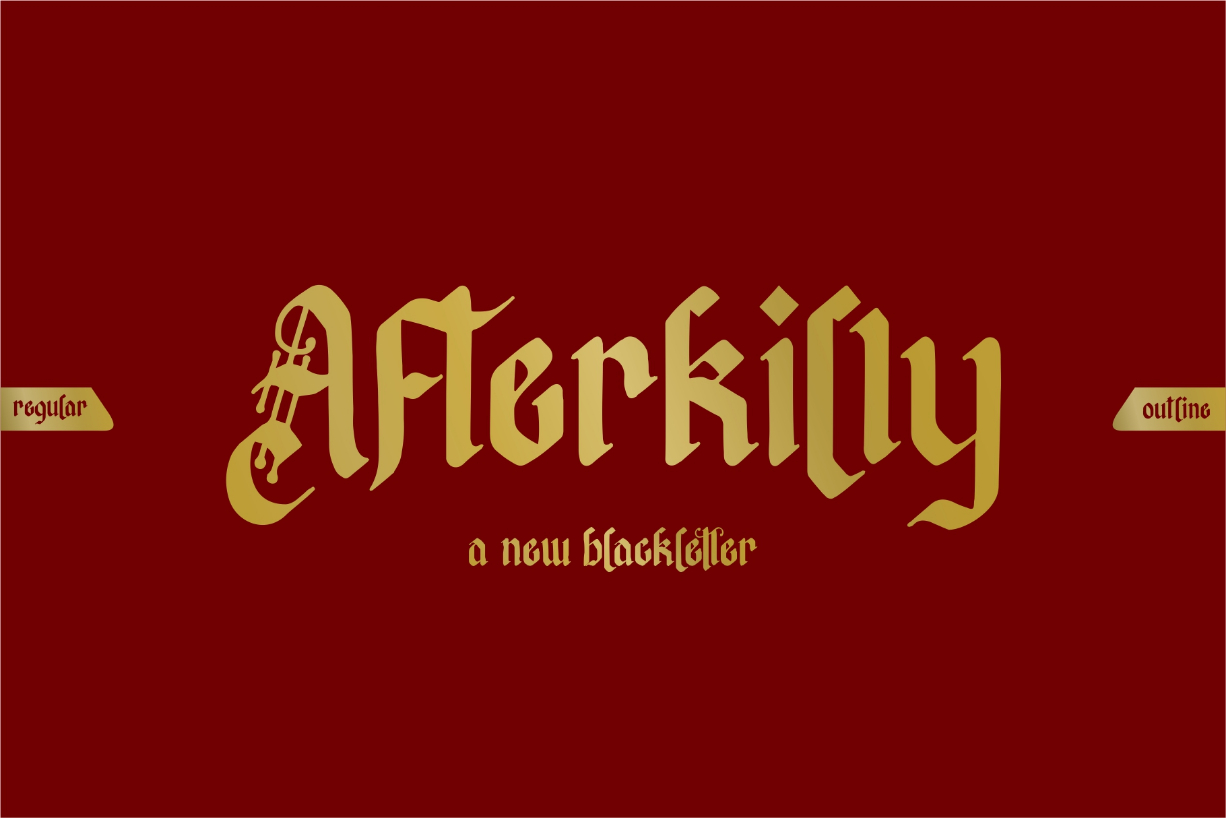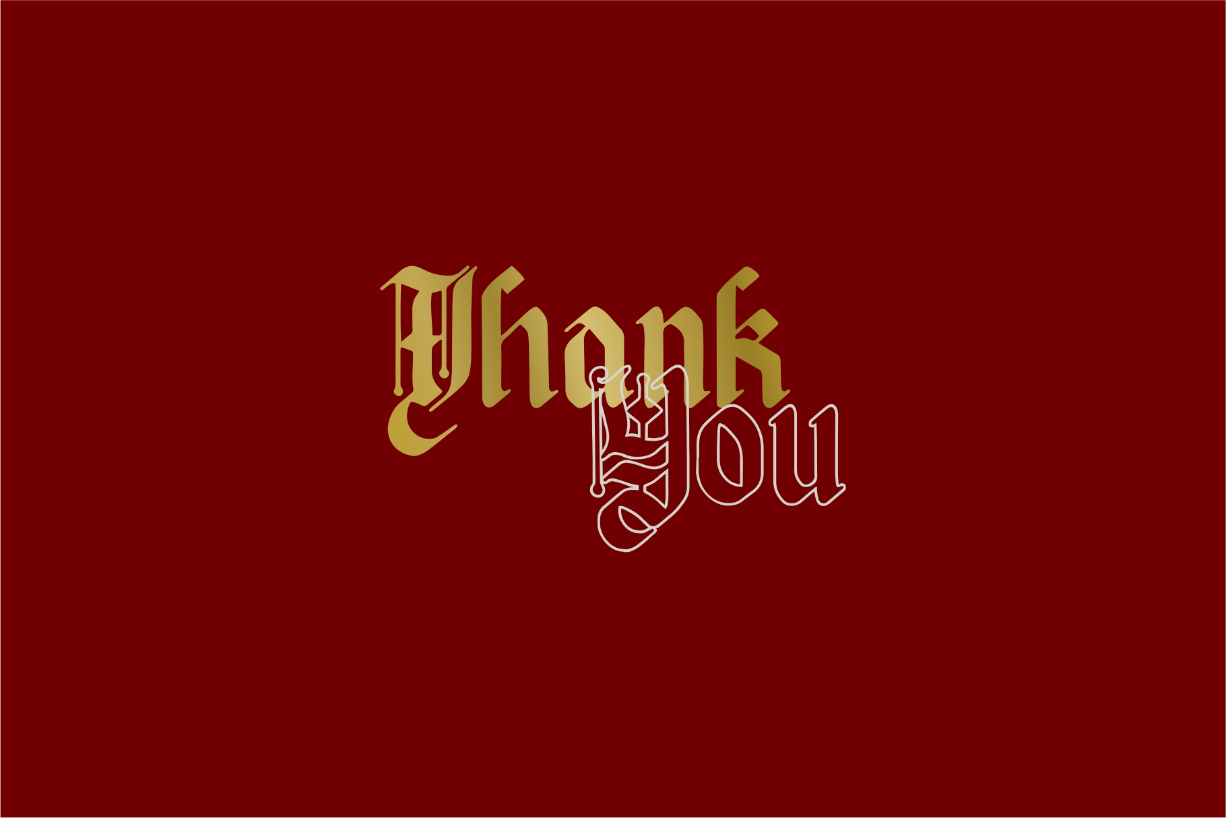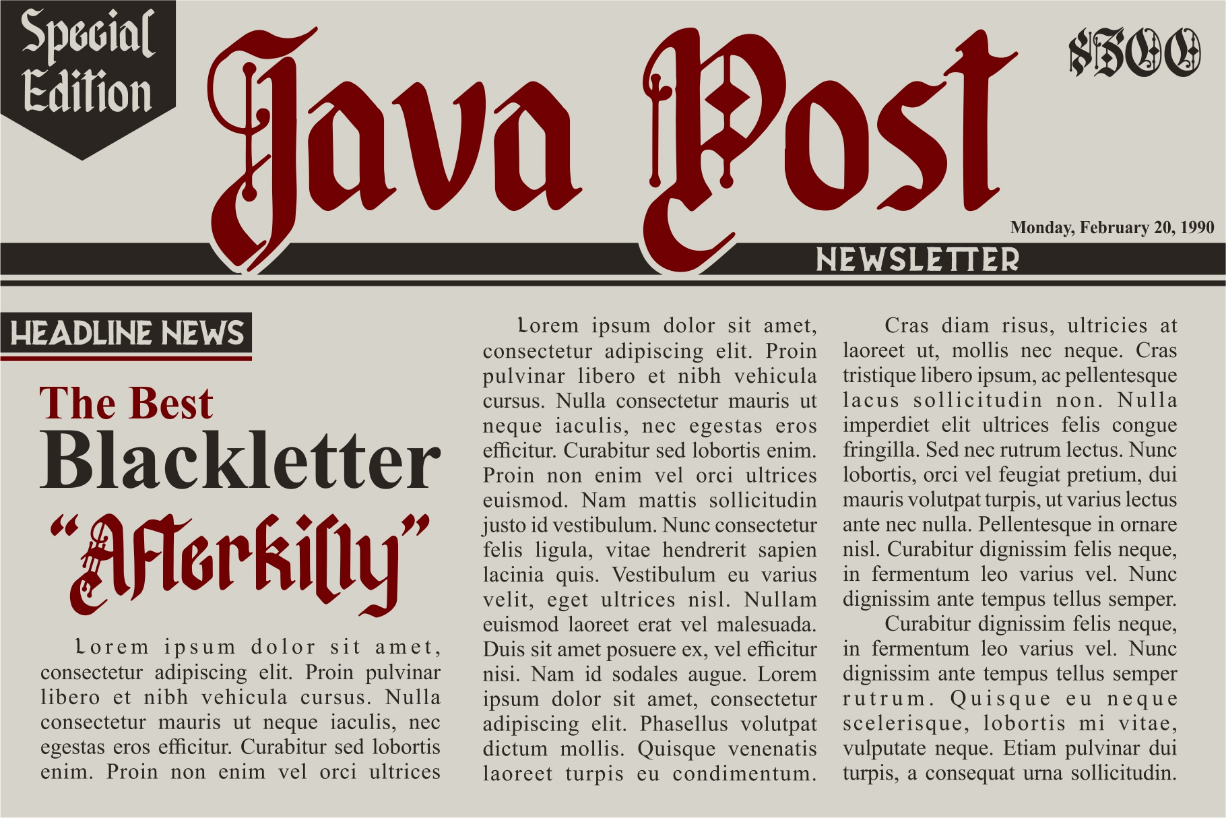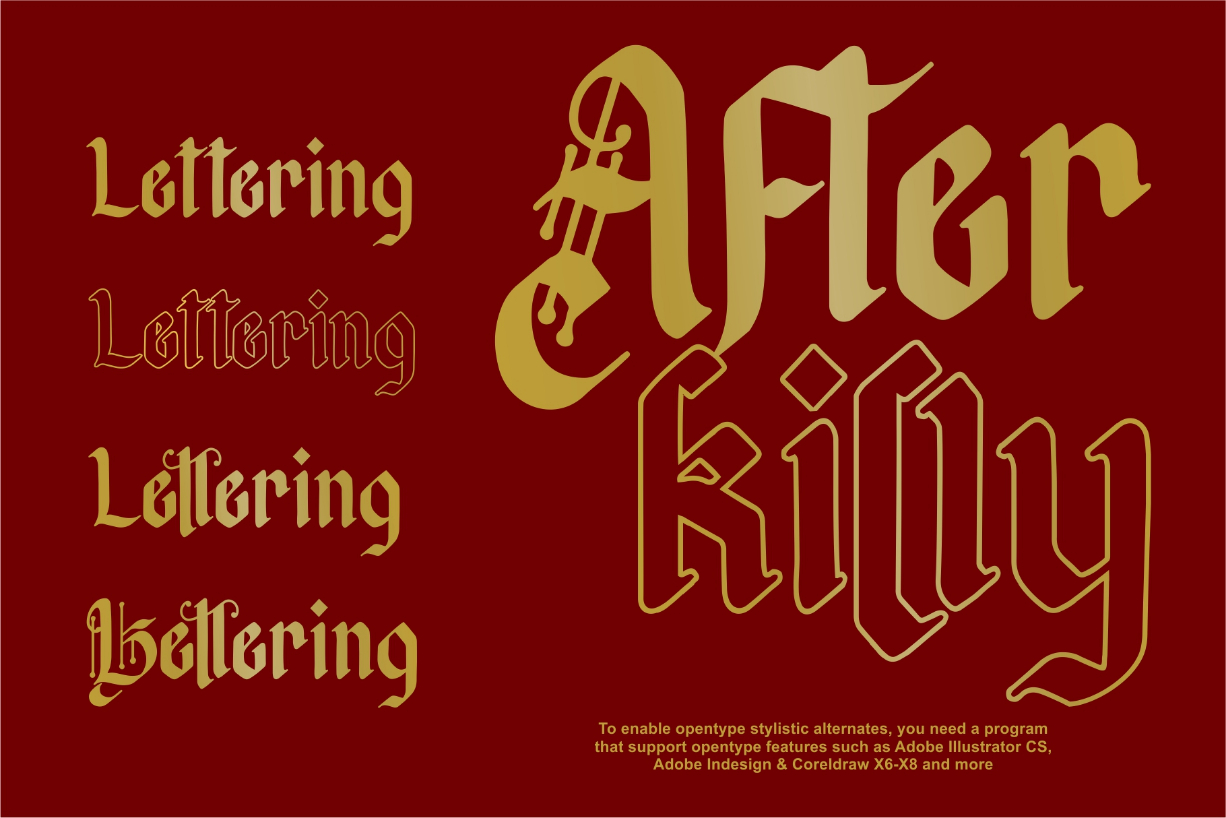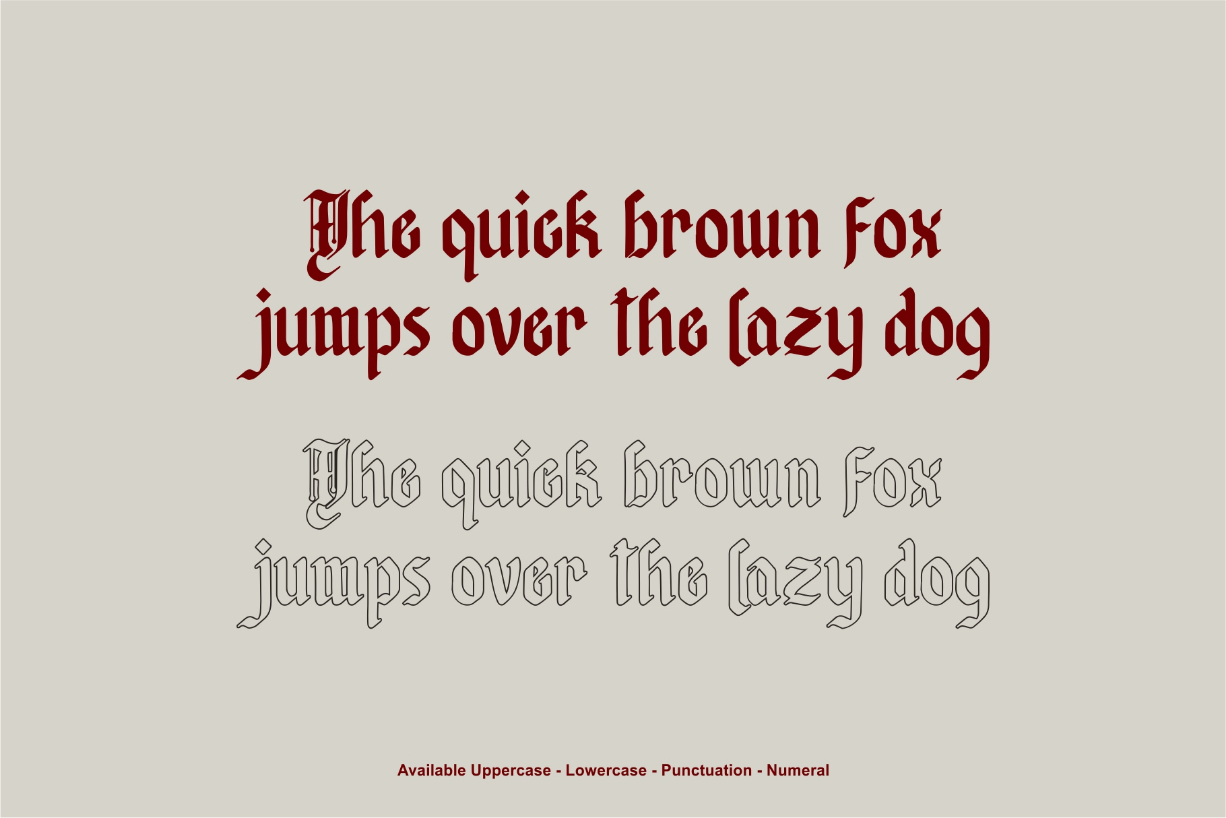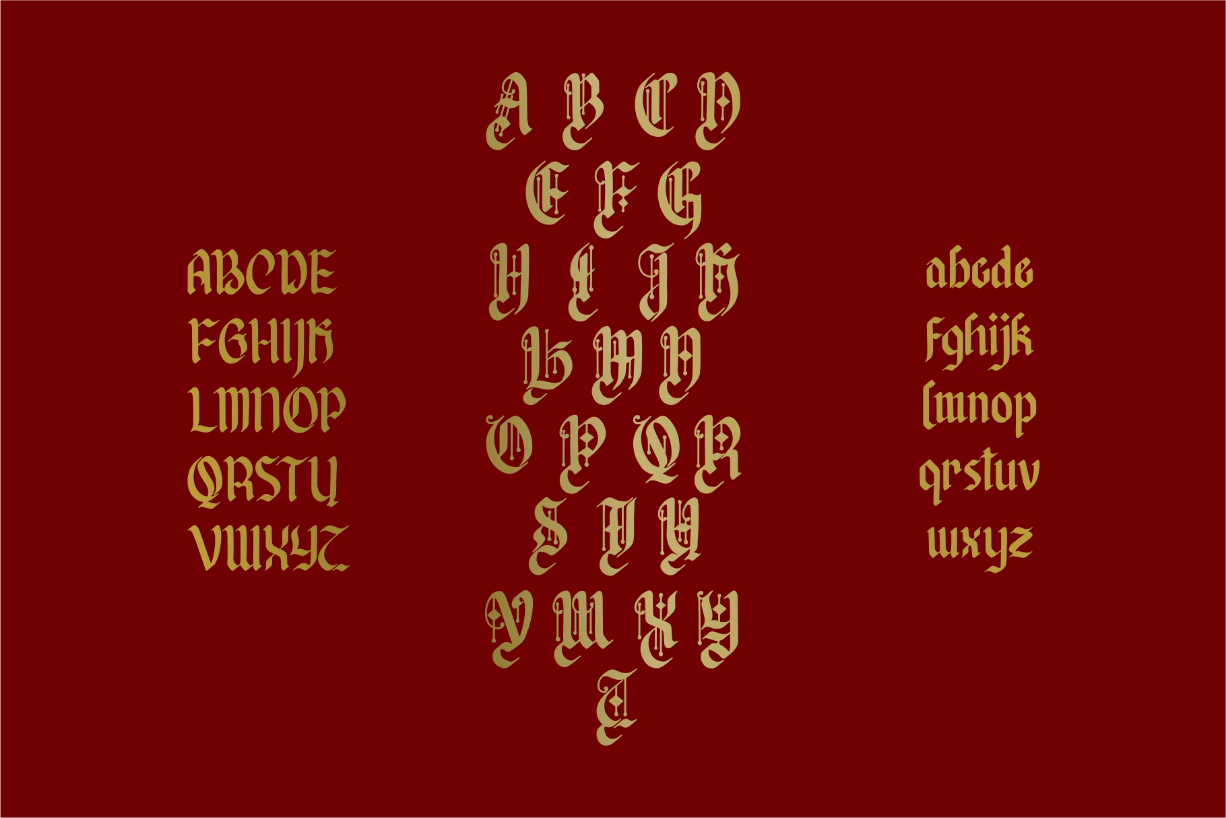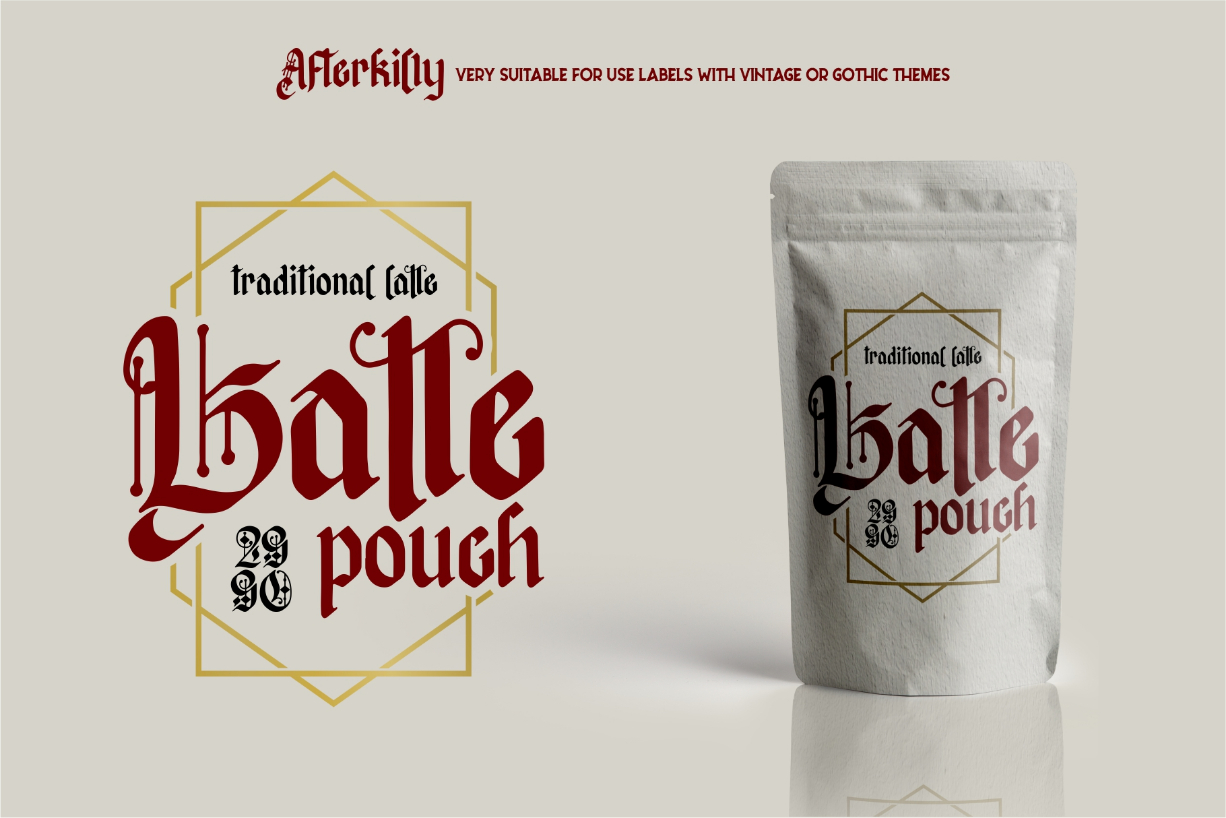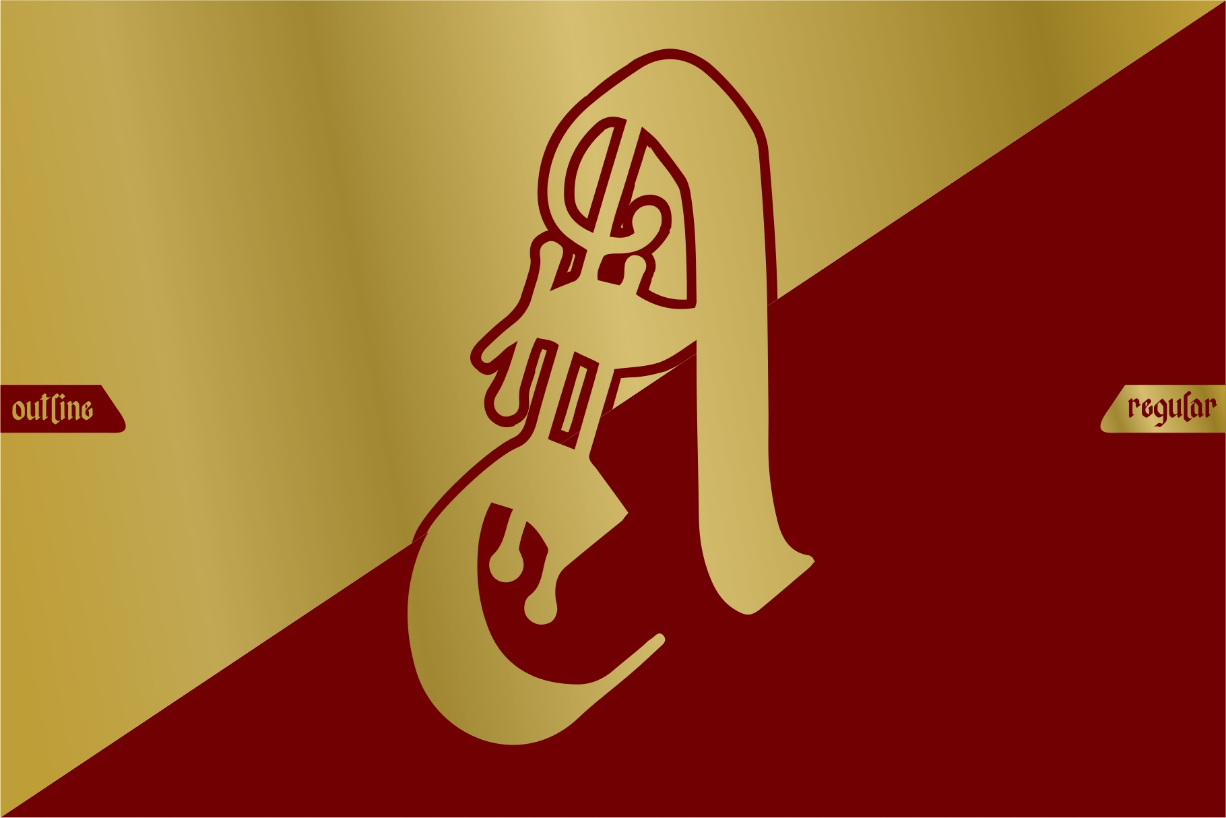
Afterkilly Font
About Afterkilly Font
The Afterkilly is a striking brush typeface. It’s equipped with stylistic alternates, specifically for uppercase letters.
It’s very suitable for posters, headlines, branding, labels, logos, and much more!
Also included is a line version for a more perfect pairing. (Note: Afterkilly Line cannot be combined with Afterkilly Regular. Only for pairing fonts)